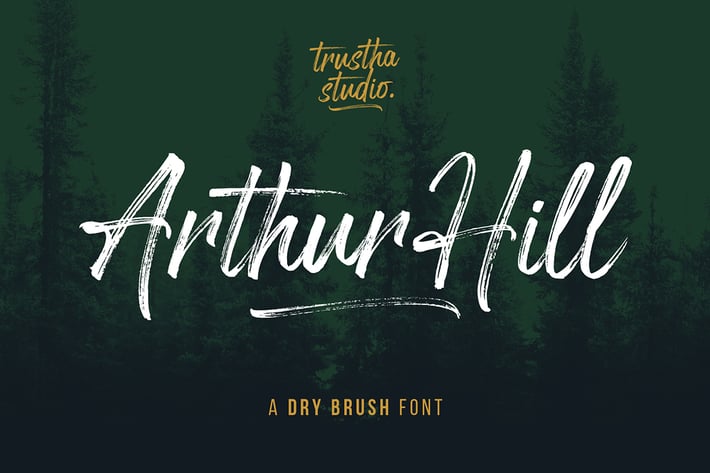
Arthur Hill Font
Arthur Hill is a handwritten font with a dry brush pen. With sharp detail makes it perfect for branding, logo, advertising, poster, website header, album cover, packaging, book cover, quotes, magazines, and much more!